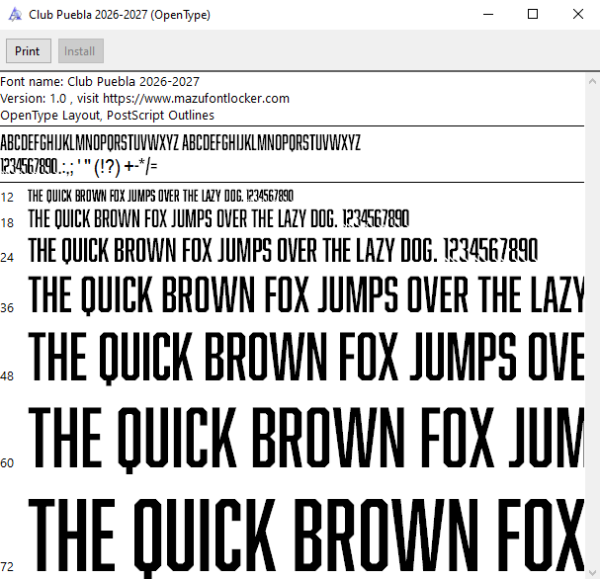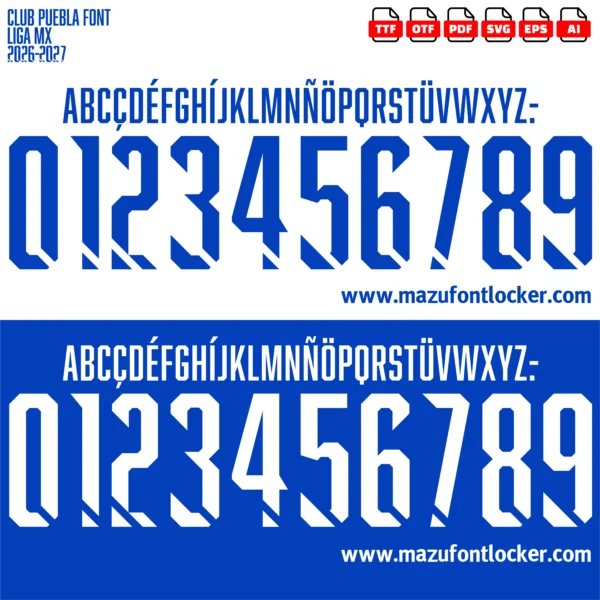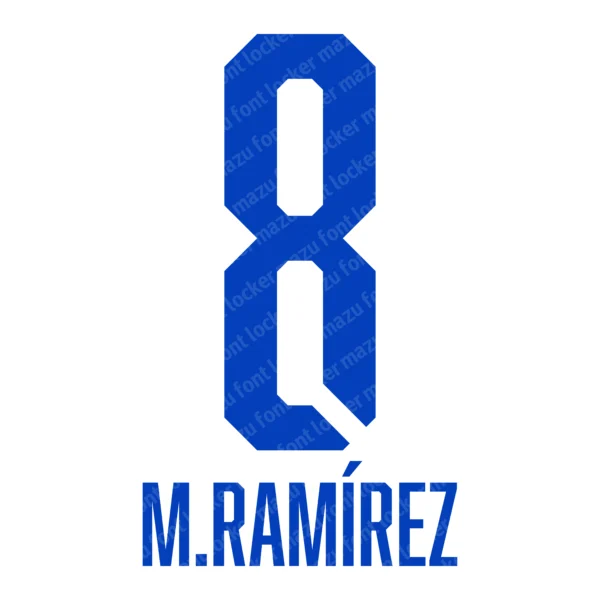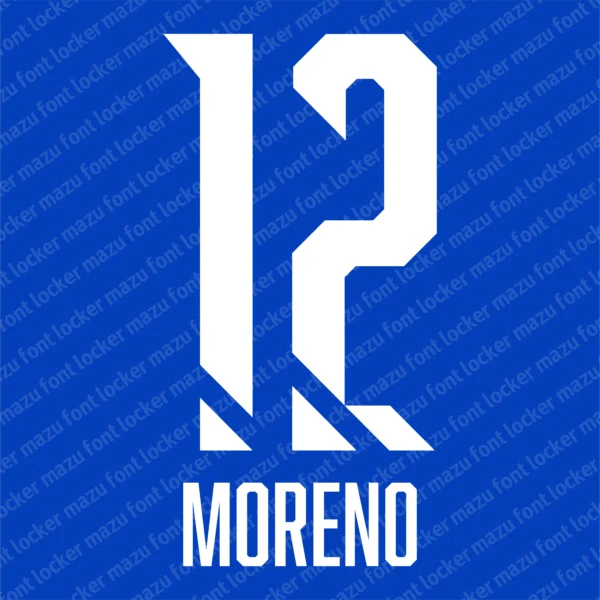
Club Puebla 2026-2027 Font Vector – Stunning La Franja Masterpiece
This font captures the commanding, steel-sharp, lightning-strike, and precision-engineered lettering that perfectly embodies Club Puebla’s iconic club identity, proud Mexican heritage, never-back-down mentality, and raw football power — delivering unmatched authenticity, premium quality, explosive energy, and elite Liga MX & international dominance for professional jersey mockups, dynamic football graphics, premium sports branding, passionate fan creations, and high-end design projects.
Club Puebla 2026-2027 Font Vector – Iconic Blue & White Typeface
The Club Puebla 2026-2027 Font Vector is a premium typeface that accurately recreates the official match lettering worn by Club Puebla during the 2026-2027 season. This high-quality vector font kit captures the bold, clean, and instantly recognizable typography that perfectly complements the club’s iconic blue and white identity.
Designed for professional designers, football enthusiasts, and passionate Club Puebla supporters, the Club Puebla 2026-2027 Font Vector delivers exceptional authenticity for creating realistic jersey mockups, football merchandise, social media graphics, match posters, and custom fan artwork. Every character has been carefully recreated to match the powerful and precise visual style of one of Mexico’s historic football clubs.
This font stands out thanks to its precise vector construction and authentic club styling. Every letter and numeral has been meticulously recreated to match the official shirt lettering used throughout the 2026-2027 Liga MX and cup campaigns. Whether you’re producing professional kit templates or creating eye-catching football content, the Club Puebla 2026-2027 Font Vector delivers a genuine match-ready appearance.
The lettering featured in the Club Puebla 2026-2027 Font Vector combines clean geometric lines with powerful modern proportions. The result is a premium and highly readable typeface that reflects Club Puebla’s fighting spirit, La Franja heritage, and passionate fanbase in Mexican football.
• Complete uppercase A–Z alphabet and numbers 0–9 in authentic Club Puebla 2026-2027 style